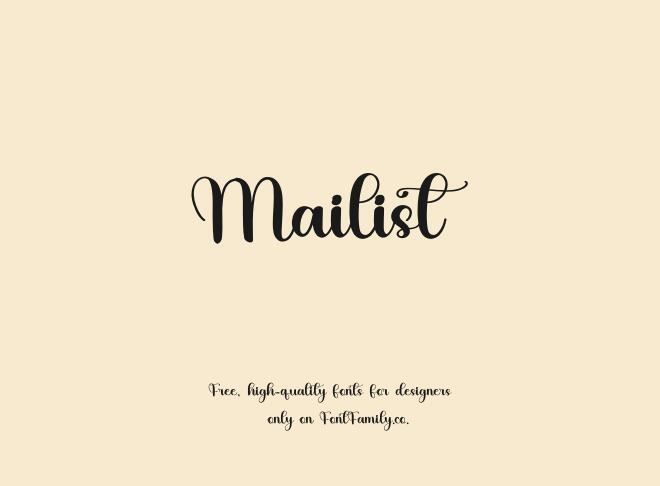
Mailist Font
Mailist Font is a modern, playful, and handwritten typeface that adds a personal touch to your design projects. Designed by Creative Fonts Foundry in 2020, this font is perfect for a variety of applications, including branding, social media posts, invitations, and more. Its handwritten style is reminiscent of quick, personal notes, making it a great choice for projects that require a friendly, approachable feel. Despite its modern and playful nature, Mailist Font maintains a level of professionalism, allowing it to be used in more formal contexts as well. Compared to other fonts, Mailist Font stands out due to its unique blend of modern and handwritten characteristics. It's a free font for personal use, making it an excellent choice for designers on a budget.